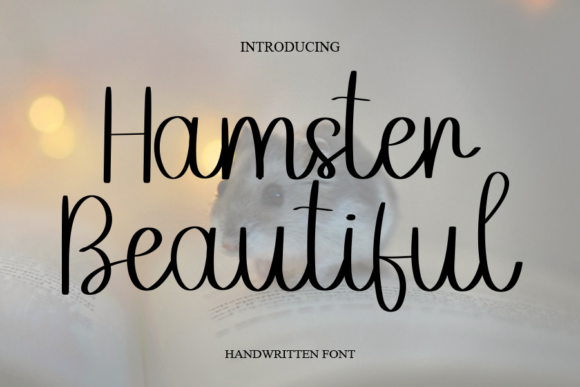
Introducing Hamster Beautiful Font – Dive into a World of Exquisite Handwritten Charm
Unleash the captivating Hamster Beautiful font, a script masterpiece that gracefully dances across your designs, leaving a trail of elegance and sophistication. This modern, yet whimsical font possesses a playful spirit, effortlessly transforming your creative visions into captivating realities.
With its relaxed handwritten style, Hamster Beautiful invites you to embark on a journey of artistic expression, where imagination knows no bounds. Its smooth curves and delicate strokes infuse your designs with a personal touch, adding a layer of warmth and charm that resonates with audiences.
As a top choice for retina displays, Hamster Beautiful shines brightly, delivering crisp and vibrant visuals that captivate the eye. Its carefully crafted characters maintain their integrity even at the smallest sizes, ensuring flawless readability and a polished appearance across all digital platforms.
Whether you're a seasoned designer or just starting out, Hamster Beautiful is your perfect companion. Its versatility knows no limits, effortlessly adapting to a wide range of projects, from branding and marketing materials to social media posts and website designs. Its playful nature adds a touch of whimsy to invitations, greeting cards, and posters, while its elegant charm elevates wedding stationery and logos to new heights of refinement.
So, embrace the beauty of Hamster Beautiful and watch your designs blossom into masterpieces. Let its enchanting aura captivate your audience and leave a lasting impression. Immerse yourself in a world of creativity and wonder, where every project becomes an unforgettable work of art.